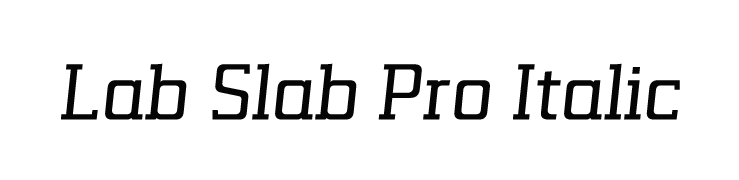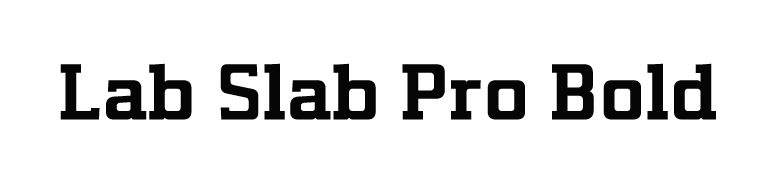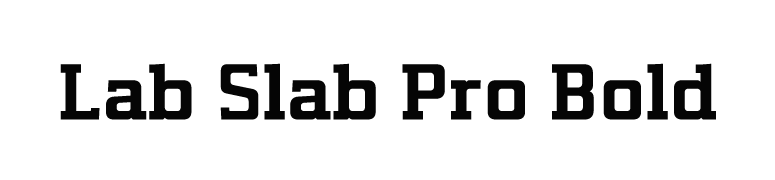
How to use Slab Serif fonts
Discover bold, blocky serifs
Slab serifs feature thick, rectangular strokes at the ends of letters—giving them a sturdy, industrial presence.
Match weight to purpose
Build confidence into your design